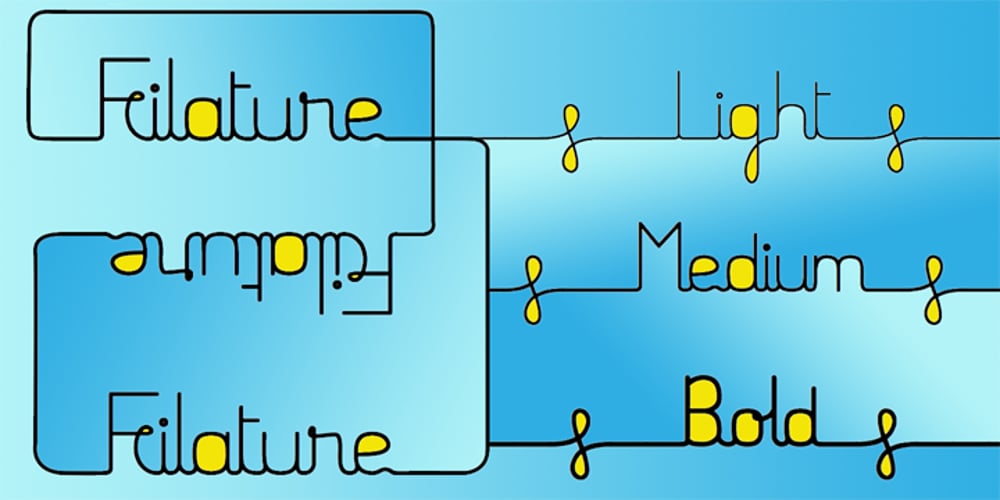
Filature Font Family was designed by Jean Boyault and published by JBFoundry. Filature contains 3 styles and family package options. Filature is a fully connected typeface with open type features. Use Filature any time you want fancy, legible, and original text.